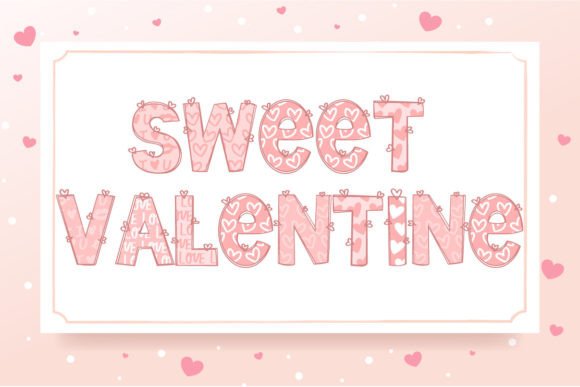
In the realm of typography, where letters dance and stories unfold, there exists a font of extraordinary charm and captivating allure – the "Sweet Valentine Font." This enchanting font, crafted by the skilled artisans of NN-Font Design, is a symphony of colors and patterns, an ode to the most romantic day of the year – Valentine's Day.
Step into a world where letters are transformed into delicate works of art, each character adorned with intricate patterns that whisper tales of love and affection. The "Sweet Valentine Font" is not just a collection of glyphs; it's an experience, a journey into the realm of visual delight.
With its hand-drawn charm and playful spirit, this font breathes life into your words, making them dance and twirl across the page. Its sweet pink hues, reminiscent of candy hearts and blooming roses, evoke feelings of joy, warmth, and unbridled happiness.
Imagine your Valentine's Day greetings, cards, and love letters adorned with the "Sweet Valentine Font." Each word, crafted with this font, becomes a testament to your affection, a visual representation of the love you hold in your heart.
This font is not merely a tool for communication; it's a conduit for expressing your emotions, a brush that paints the canvas of your love story. It's perfect for creating personalized gifts, heartfelt messages, and invitations that capture the essence of Valentine's Day.
Whether you're a seasoned designer or a passionate hobbyist, the "Sweet Valentine Font" will elevate your creative projects to new heights. Its versatility extends beyond Valentine's Day; it adds a touch of whimsy to birthday cards, party invitations, and even everyday correspondence.
Make your words bloom with love, laughter, and a sprinkle of sweetness. Embrace the magic of the "Sweet Valentine Font" and embark on a typographic adventure that will leave your creations bursting with charm and personality.